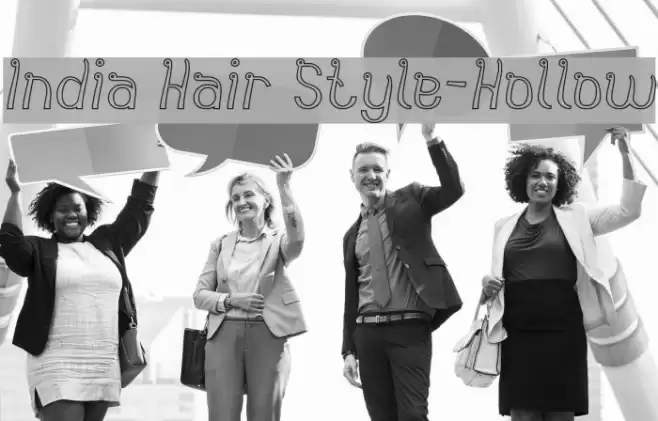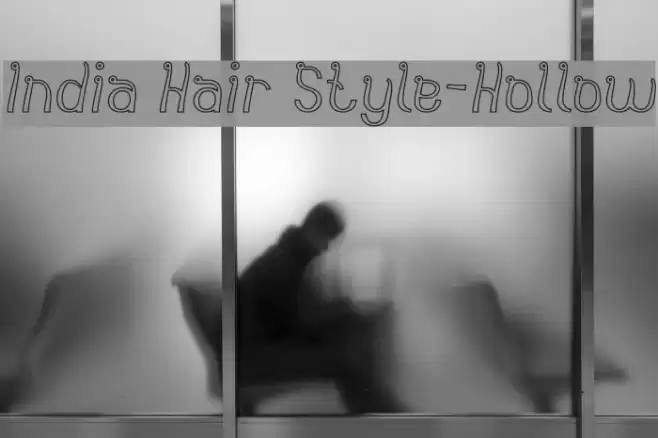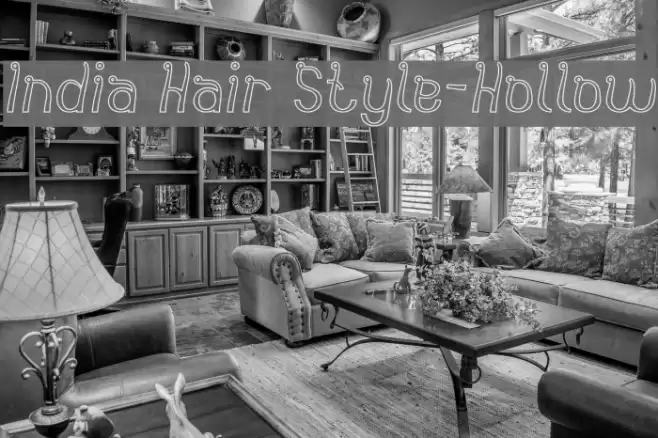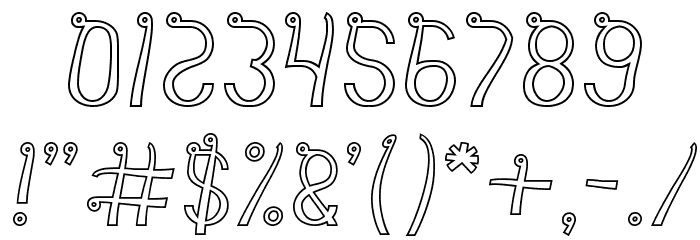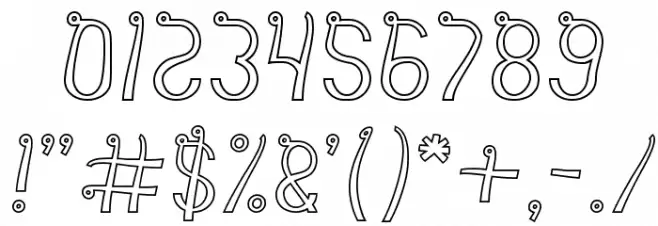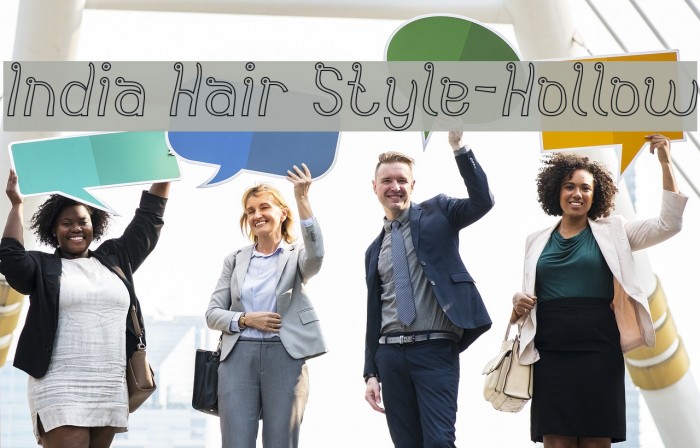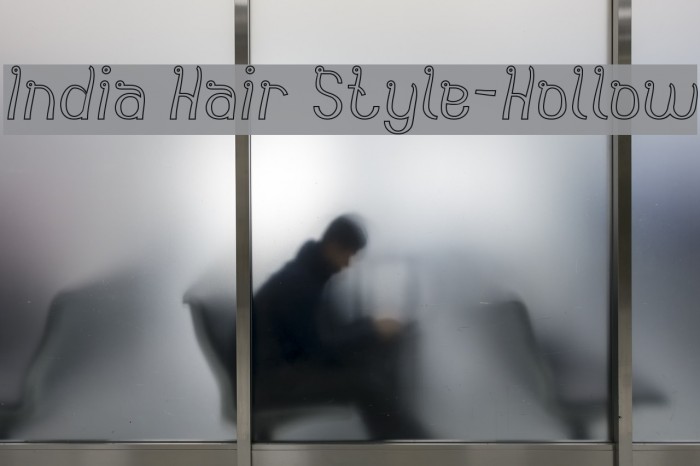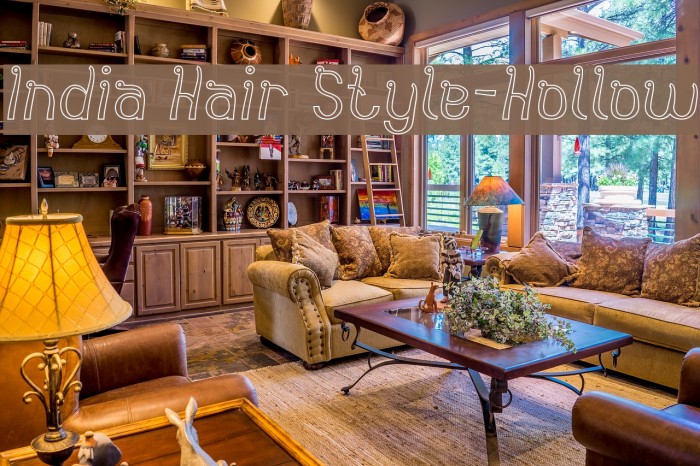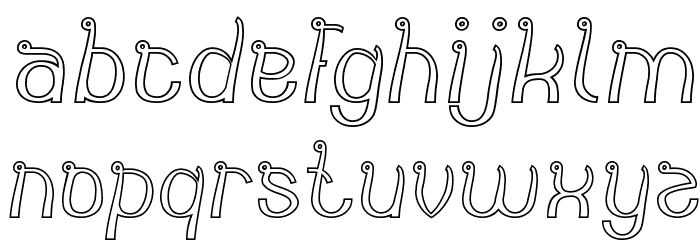
India Hair Style-Hollow Font
India Hair Style-Hollow Description
This font features a unique, playful design with hollow characters that incorporate a distinct loop or curl at the end of each stroke. The letters are evenly spaced, maintaining a consistent flow throughout the alphabet. The uppercase and lowercase letters share a similar style, with a whimsical touch that makes them stand out. Numbers and special characters follow the same design principles, ensuring a cohesive look. The font's hollow nature gives it a light and airy feel, making it suitable for creative and artistic projects.
A playful, hollow font with unique loops and curls on each character from Uncategorized fonts.
- Proposed Projects: Ideal for children's books, creative posters, playful branding, and artistic designs.
- Overall Style: Whimsical and Artistic
- Use Case: Headlines, Logos, Creative Designs